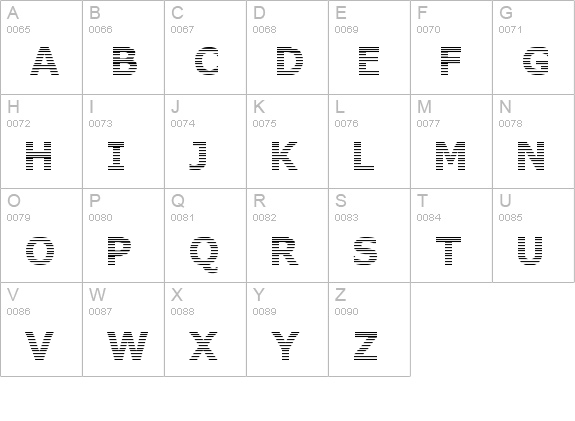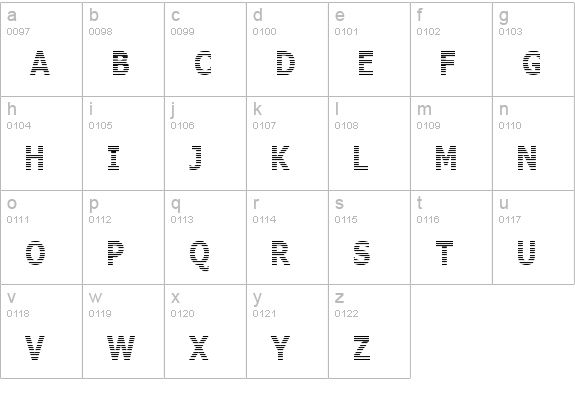
Where is the rest Font Details
Where is the rest font is a beautifully designed typeface that exudes elegance and sophistication. Its clean lines and graceful curves make it the perfect choice for any creative project, whether it be for print or digital media. This font is not only visually appealing, but it is also incredibly versatile. With its wide range of weights and styles, Where is the rest font can adapt to any design concept or branding strategy. Whether you're looking for a bold and impactful headline font or a subtle and refined body text font, this typeface has got you covered. One of the best things about Where is the rest font is that it is completely free. You can easily download it from FontsMarket.com, a trusted source for high-quality fonts. This means that you no longer have to break the bank to access professional-grade typography. With Where is the rest font, you can elevate your designs without spending a penny. So why wait? Unlock your creative potential and download Where is the rest font today. Transform your projects with this stunning typeface and make a lasting impression on your audience. Whether you're a designer, a marketer, or a creative enthusiast, this font is sure to become an invaluable tool in your arsenal. Don't miss out on the opportunity to enhance your work with this freely available font.